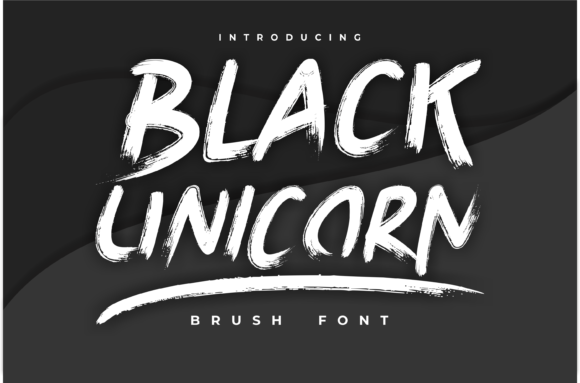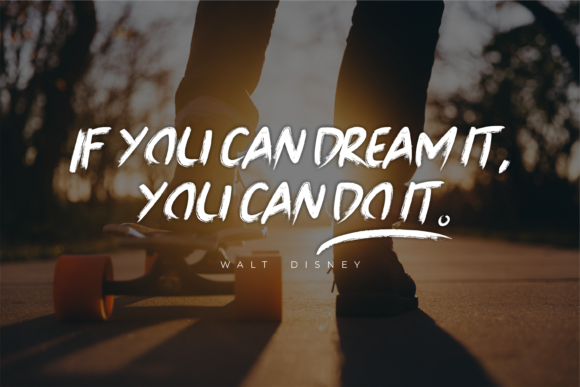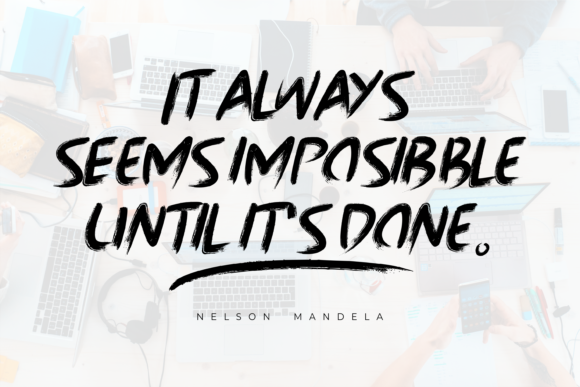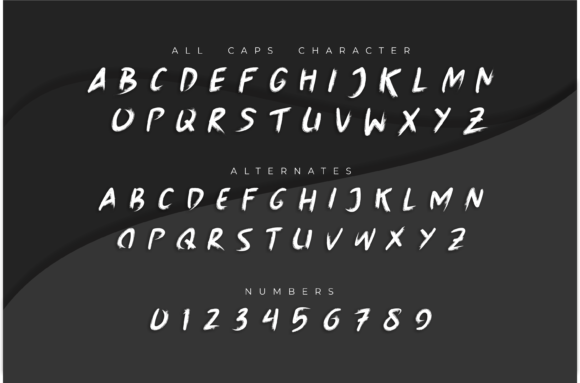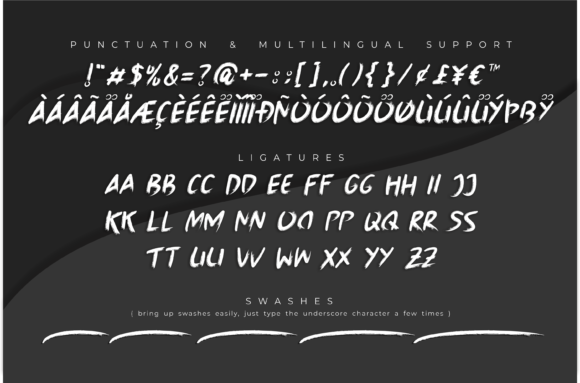
Black Unicorn Font
About Black Unicorn Font
Black Unicorn is a brush-style handwritten font. This font features lots of alternate ligatures and swashes to make it really look like your own handwriting. Bring up swashes easily, just type the underscore character a few times. Perfect for your creative projects this season.